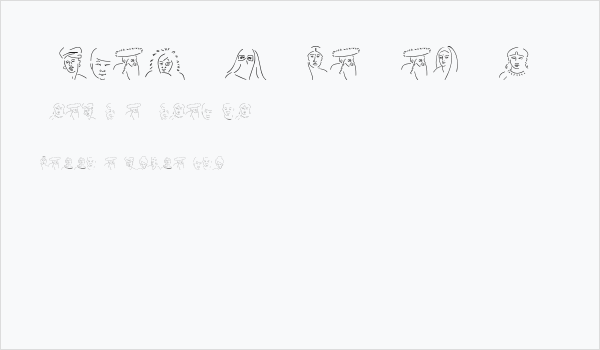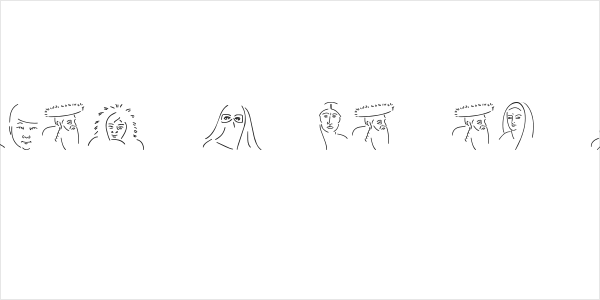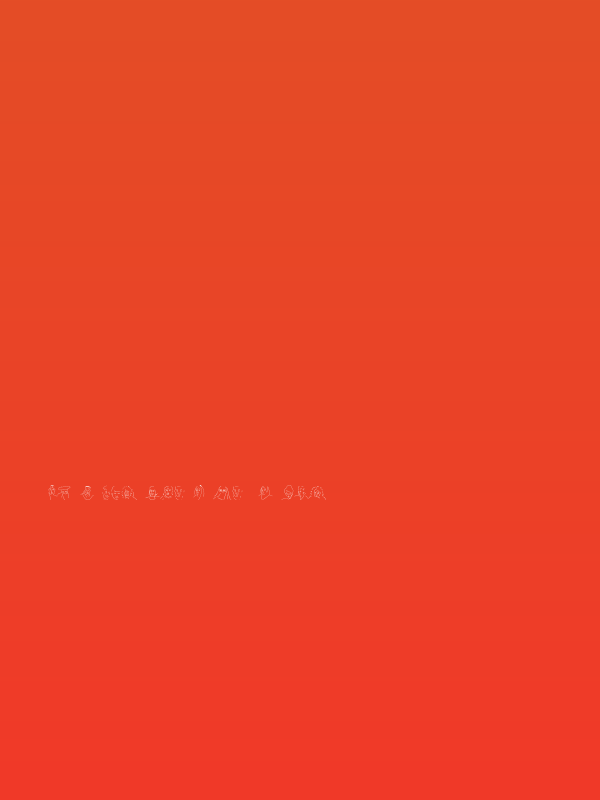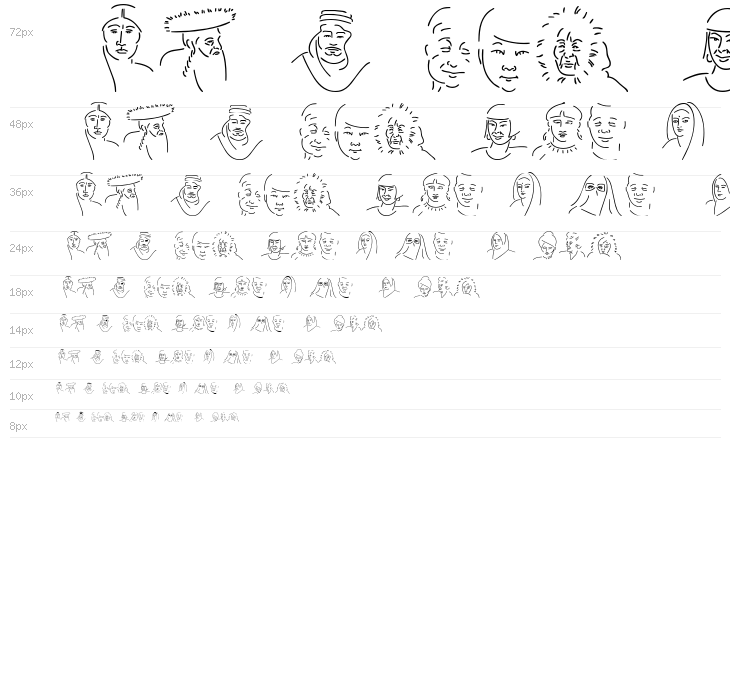
Faces Of The Century Font
Faces Of The Century Description
Minimalist, hand-drawn line illustrations of diverse human faces, each characterized by unique cultural or stylistic elements, rendered with simple, continuous strokes and no shading.
| Overall Style | Decorative, Artistic, Minimalist |
| Use Case | Illustrative accents, branding, posters, educational materials. |
| Proposed Projects | Editorial illustrations, educational posters, multicultural campaigns, art prints, greeting cards. |